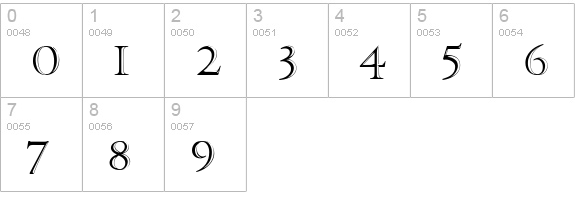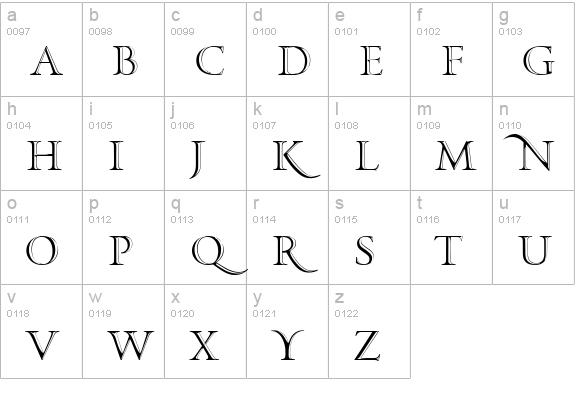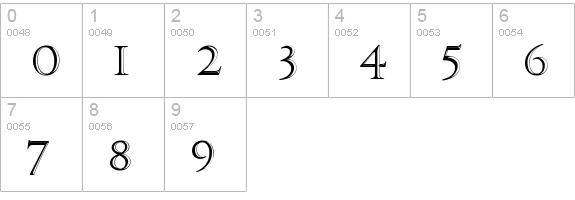
PFMonumentaPro-Metallica Font Details
PFMonumentaPro-Metallica is a stunning and bold display font that exudes strength and power. Its intricate metallic design gives it a unique and edgy look that demands attention. Perfect for headlines, logos, and branding projects, this font will make your designs stand out and make a statement. And the best part? PFMonumentaPro-Metallica is available for free download at FontsMarket.com! Don't miss out on adding this striking font to your collection and taking your designs to the next level.